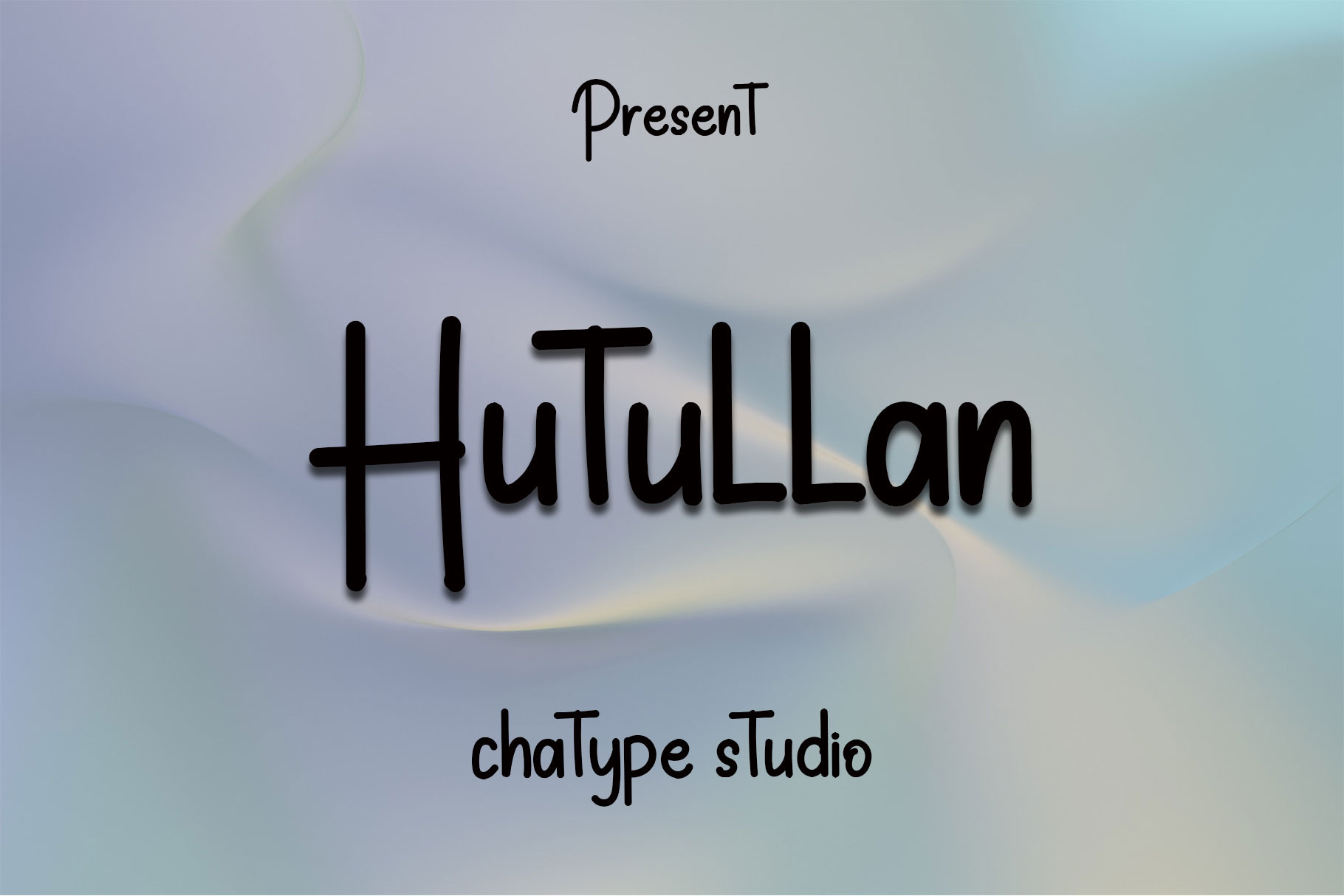
Huttulan font with new style, this font will perfect for many different project ex: quotes, logo, blog header, poster, banding, letter, invitation, stationery, etc.